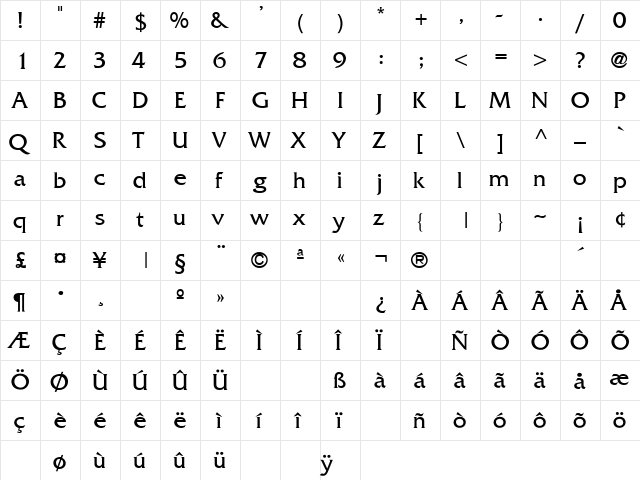
BigBear Normal light Font Preview
BigBear Normal light
Design Context for BigBear Normal Typeface
BigBear Normal is a composed and adaptable typeface that performs quietly and consistently across a wide range of design contexts. Its slender proportions lend an understated elegance to any composition.